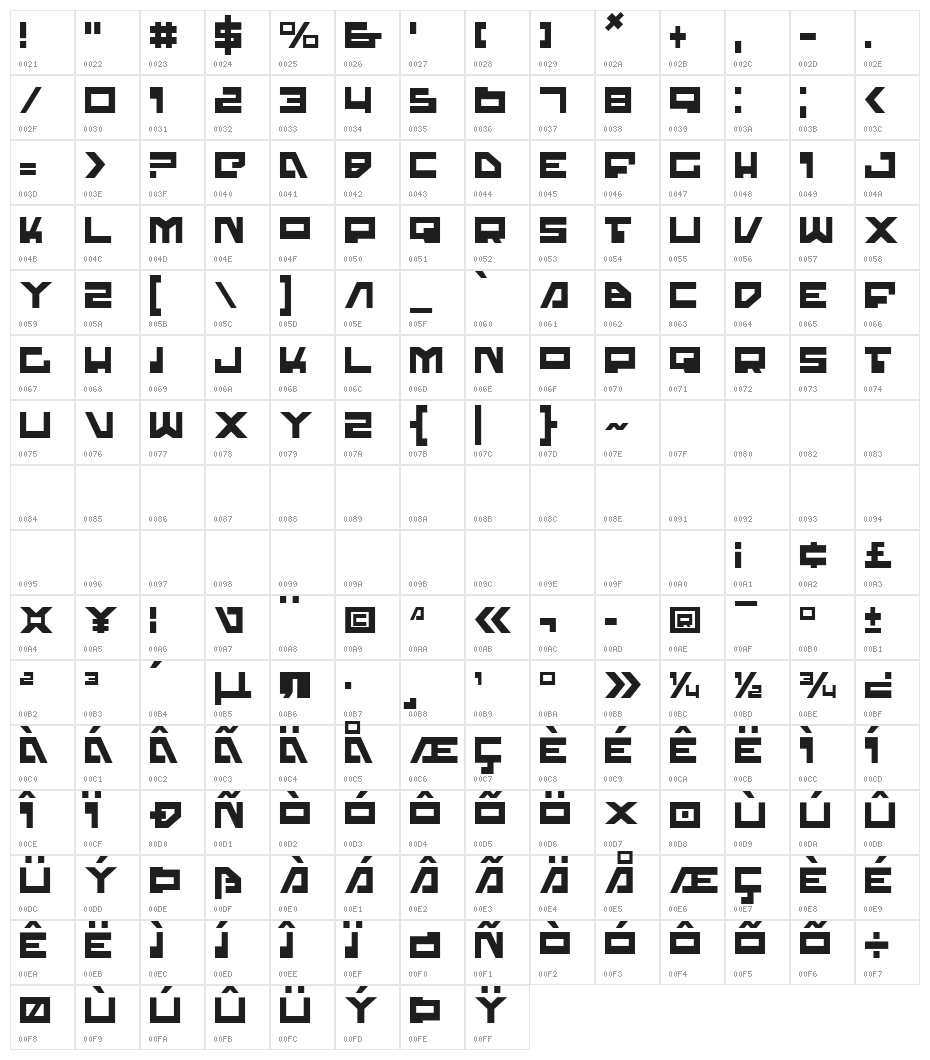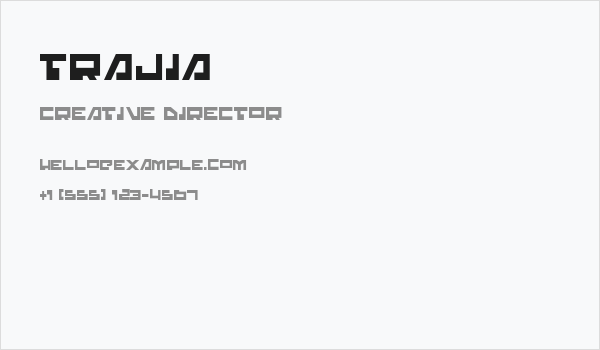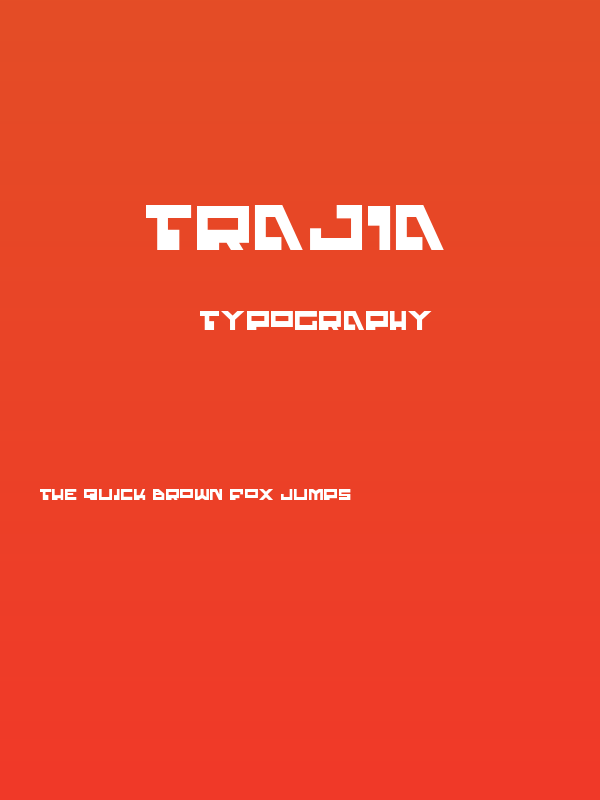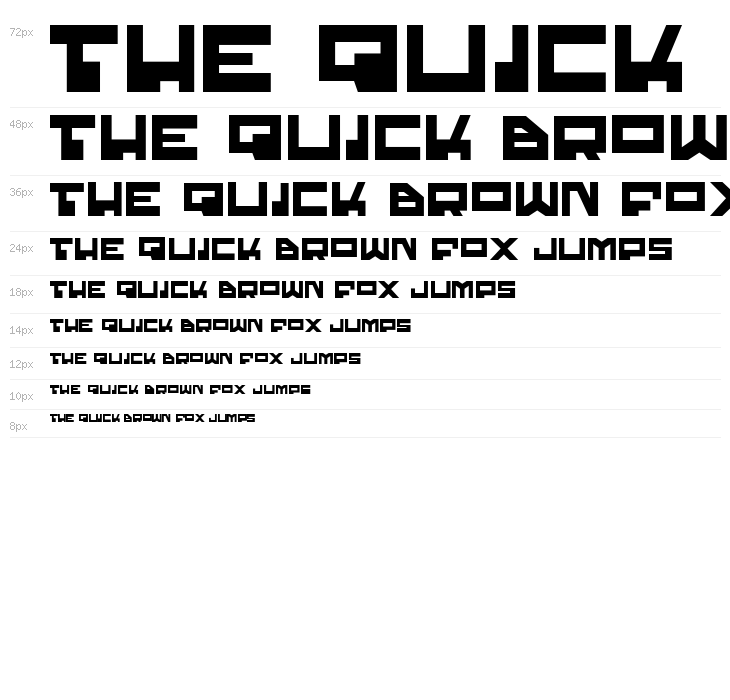
Trajia Font
Trajia Description
This font features a bold, geometric style with a futuristic and digital aesthetic. The characters are constructed with sharp angles and straight lines, giving it a blocky and robust appearance. The uppercase and lowercase letters maintain a consistent height, contributing to a uniform look. The numerals and special characters follow the same angular design, ensuring cohesion across all glyphs. This font's strong visual impact makes it suitable for attention-grabbing designs.
| Proposed Projects | Ideal for technology-themed projects, video game titles, posters, and branding that requires a modern and edgy look. |